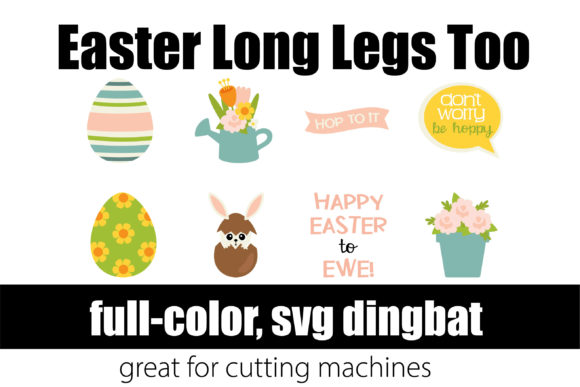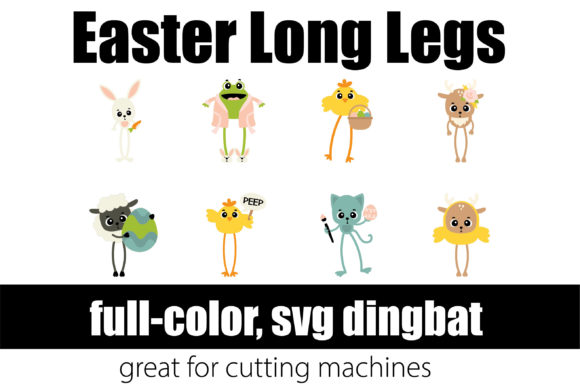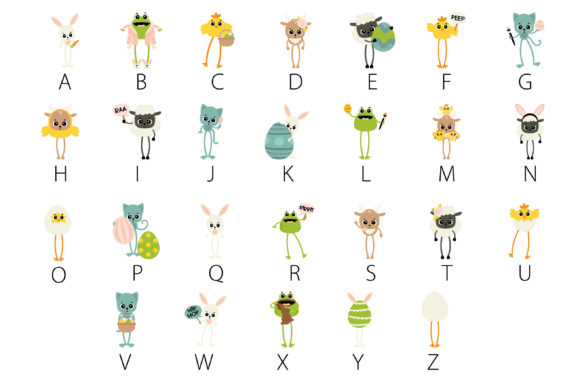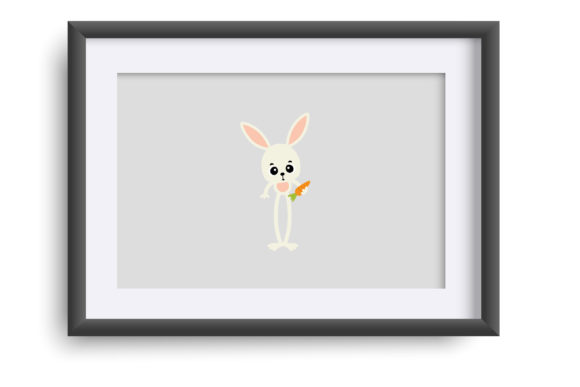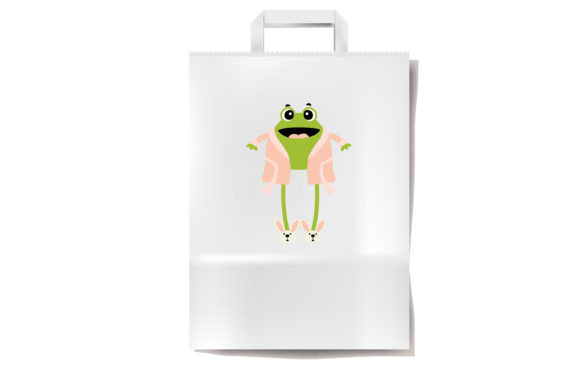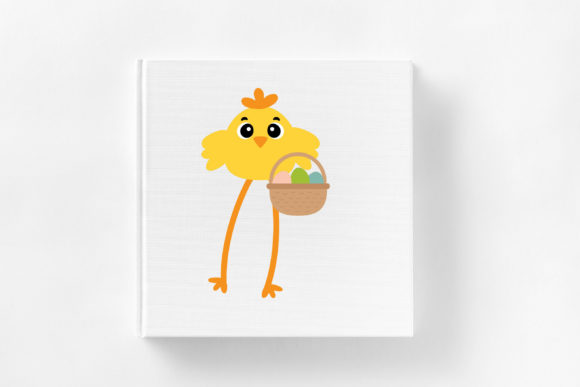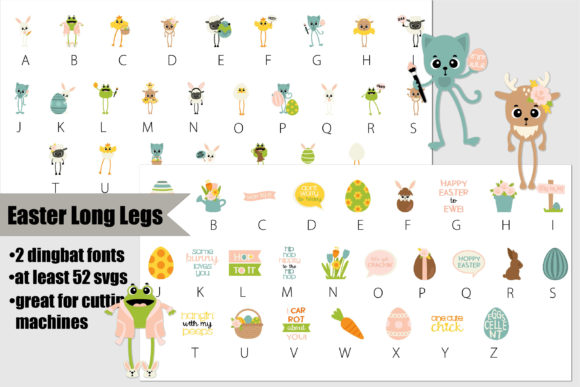
Easter Long Legs Font: A Comprehensive Guide for Designers and Crafters
Are you looking for a unique and creative way to add a personal touch to your Easter-themed designs and crafts? Look no further than the Easter Long Legs Font, a full-color dingbat bundle featuring long-legged Easter and spring animals, as well as Easter-themed elements in two different colorful dingbat fonts.
What is the Easter Long Legs Font?
The Easter Long Legs Font is a digital font bundle that includes a collection of colorful Easter-themed elements, such as long-legged animals, eggs, and other spring-inspired designs. This font is a type of Opentype-SVG color font, which allows for vibrant, full-color designs that can be used in a variety of creative projects.
Key Features of the Easter Long Legs Font
- Full-color dingbat bundle: Features long-legged Easter and spring animals, as well as Easter-themed elements in two different colorful dingbat fonts.
- Opentype-SVG color font: Allows for vibrant, full-color designs that can be used in compatible software.
The Easter Long Legs Font offers a range of benefits for designers and crafters, including:
- Unique and creative designs: The Easter Long Legs Font features a range of colorful, long-legged Easter and spring animals, as well as Easter-themed elements that can add a personal touch to designs and crafts.
- Versatility: The Easter Long Legs Font can be used in a variety of creative projects, from digital designs to crafts and DIY projects.
Tips and Ideas for Using the Easter Long Legs Font
Here are some tips and ideas for using the Easter Long Legs Font:
- Easter cards and invitations: Use the Easter Long Legs Font to create colorful, personalized Easter cards and invitations.
- Spring-themed crafts: Add a personal touch to spring-themed crafts, such as Easter baskets, decorations, and DIY projects.
- Digital designs: Use the Easter Long Legs Font to create vibrant, full-color digital designs, such as social media graphics, blog posts, and website elements.
The Easter Long Legs Font is a unique and creative way to add a personal touch to Easter-themed designs and crafts. With its colorful, long-legged Easter and spring animals, as well as Easter-themed elements, this font is sure to inspire designers and crafters alike. By following the tips and guidelines outlined in this article, you can get the most out of the Easter Long Legs Font and create beautiful, eye-catching designs and crafts.